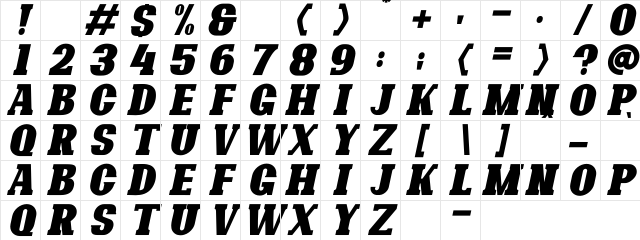
Bonaro Clean Italic Demo Clean Italic
Style: Clean Italic
Designer: Sabrcreative Studio
Design Context for Bonaro Clean Italic Demo
Bonaro Clean Italic Demo is a composed and adaptable typeface that performs quietly and consistently across a wide range of design contexts. The slanted form adds forward momentum and visual energy.